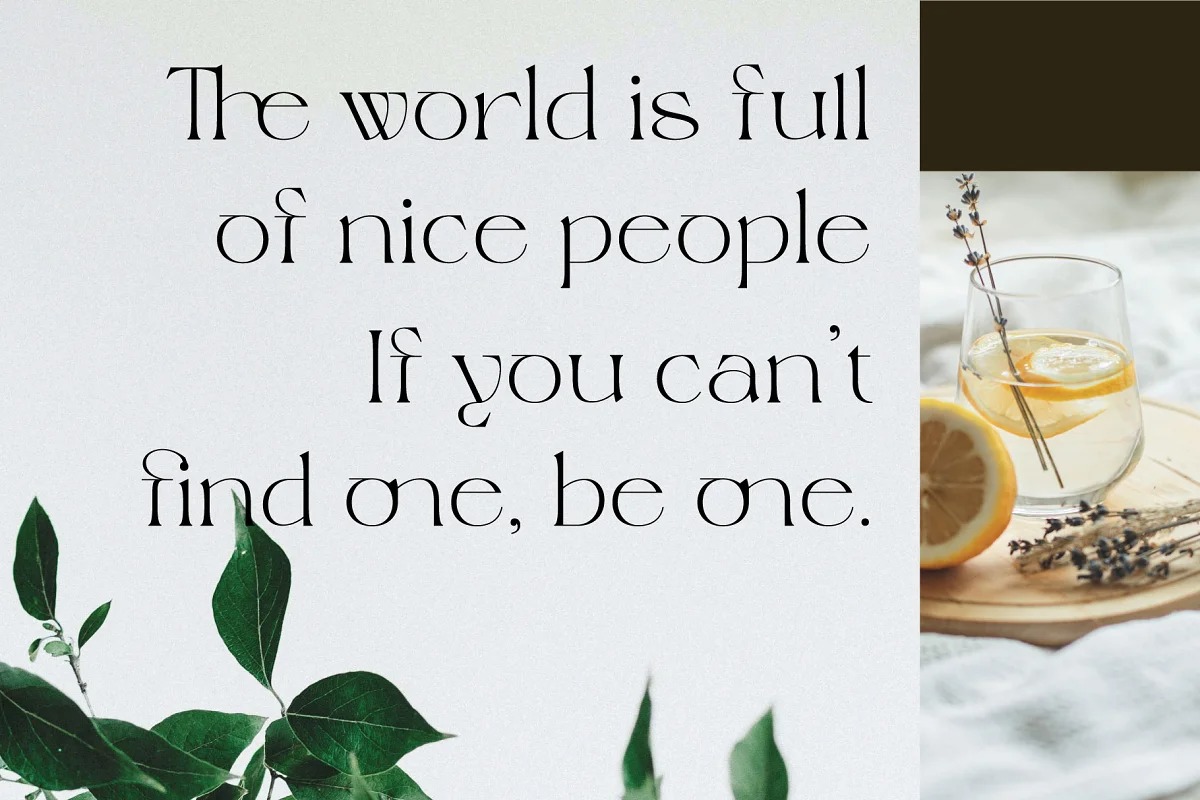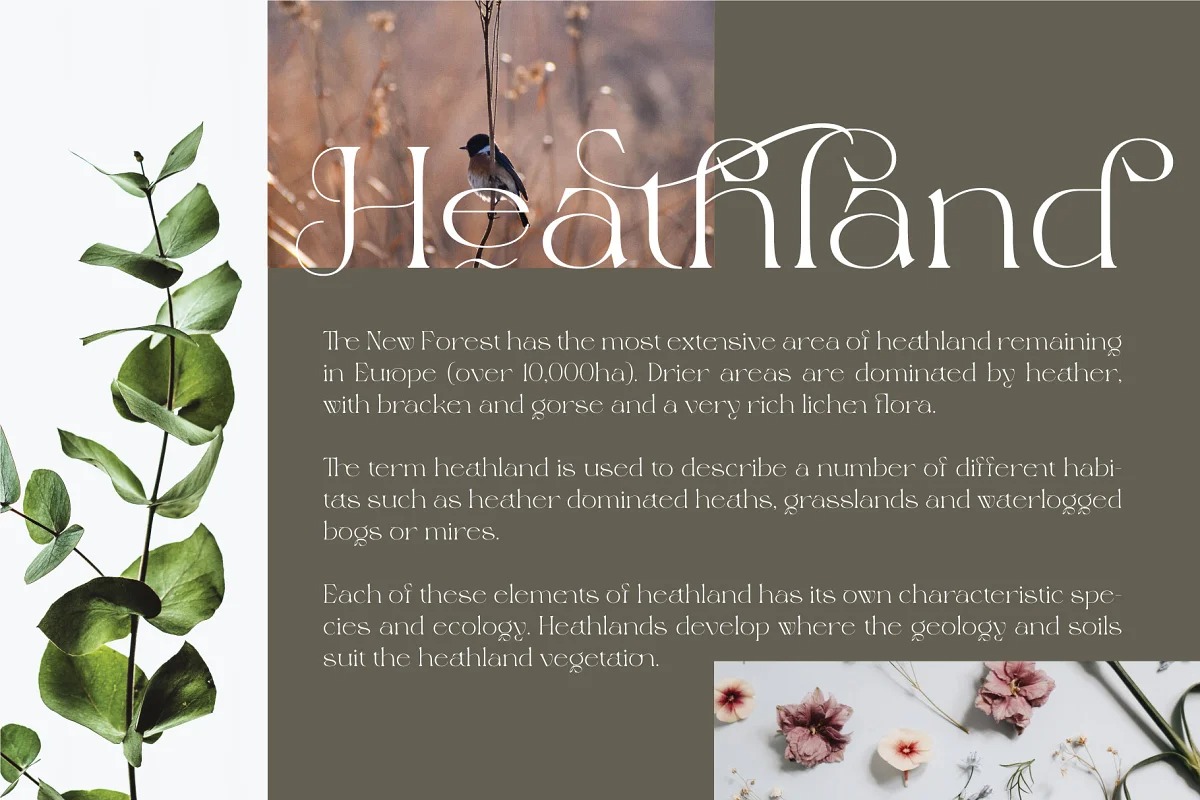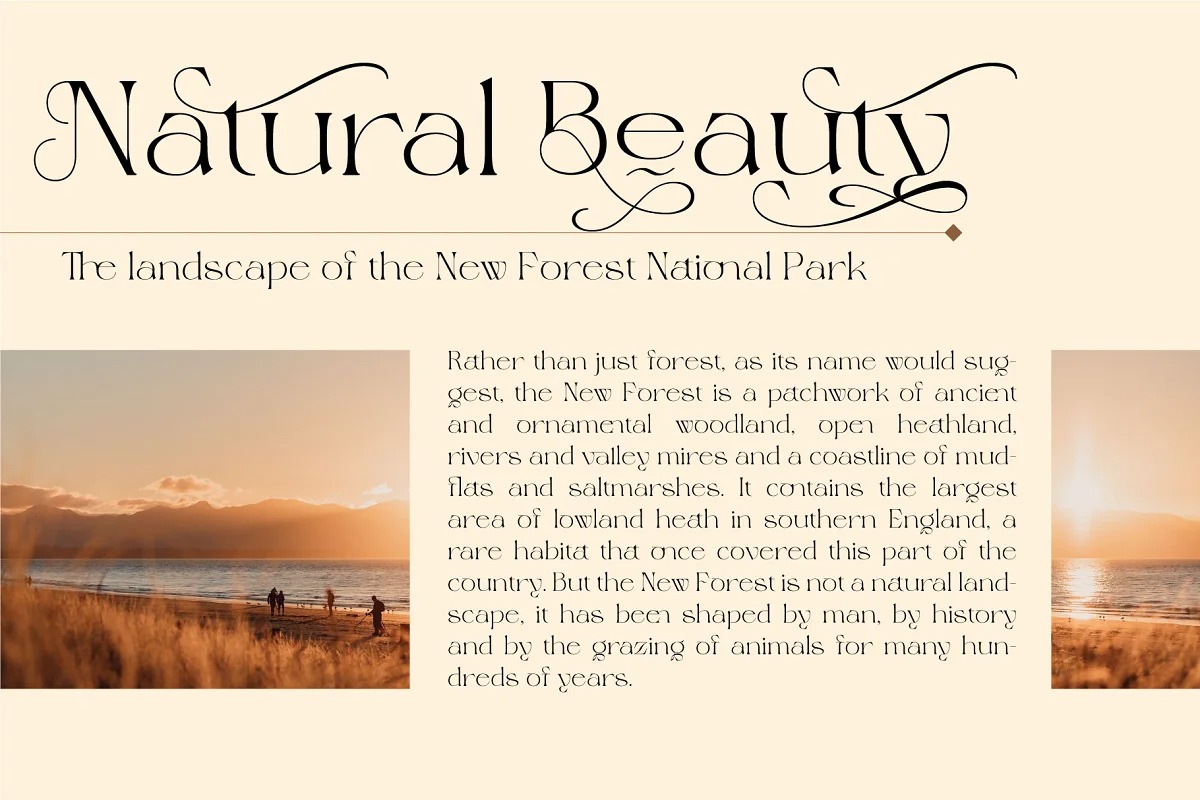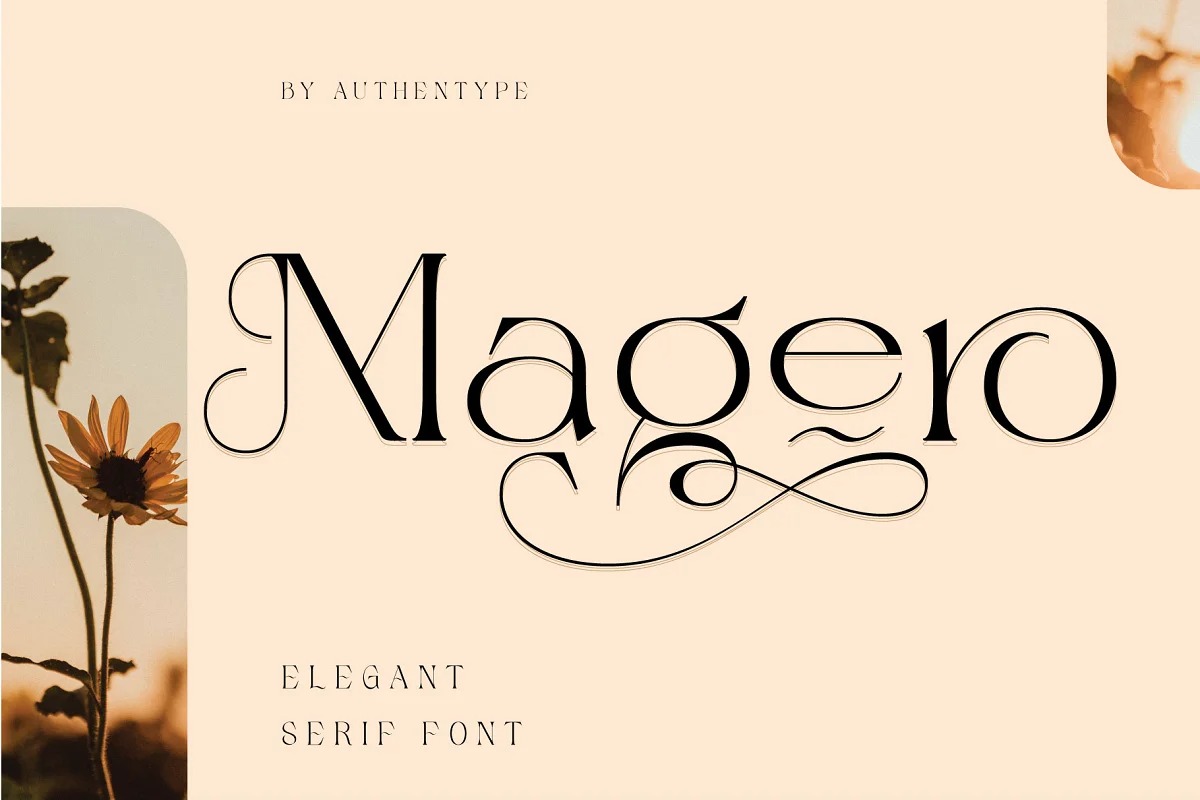
Magero Font
Magero Serif Font
It’s a modern and elegant serif typeface with multipurpose function. Made from font designer named AuthenType. Also contains a swash with an elegant, contrasting, and clean, perfect for logo designs, posters, and various types of promotional media.